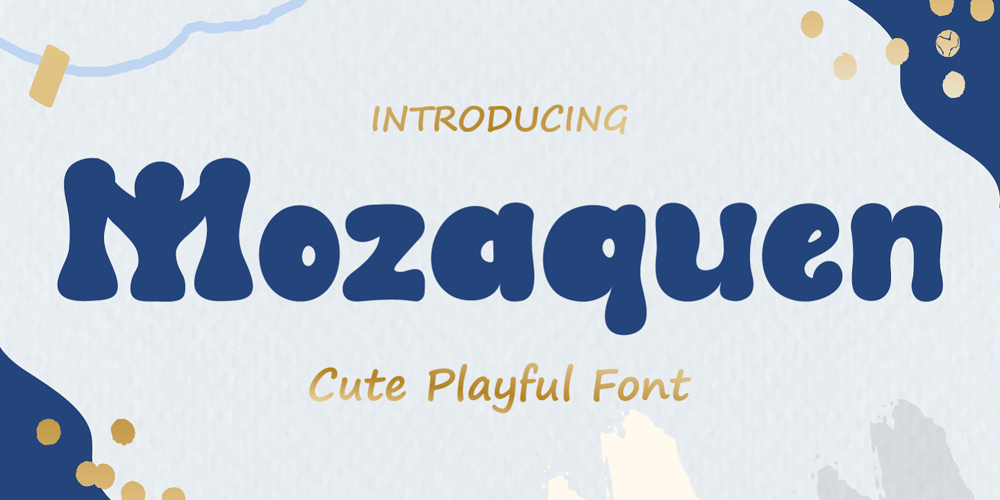
Mozaquen Font Family was designed by Tio Yulianto and published by Javatypestd. Mozaquen contains 1 styles and family package options. Introducing Mozaquen is a cute font with a modern style and made in a way that follows current trends, a quirky font perfect for all of your craft projects!Mozaquen best uses for Logotype, heading, cover, poster, logos, quotes, product packaging, header, merchandise, social media & greeting cards and many more.This font is also support multi language.What’s Included :- Standard glyphs- Works on PC & Mac- Simple installations- Accessible in Adobe Illustrator, Adobe Photoshop, Adobe InDesign, even work on Microsoft Word.- PUA Encoded Characters – Fully accessible without additional design software.- Fonts include multilingual supportThank you for your purchase!Hope you enjoy our font!